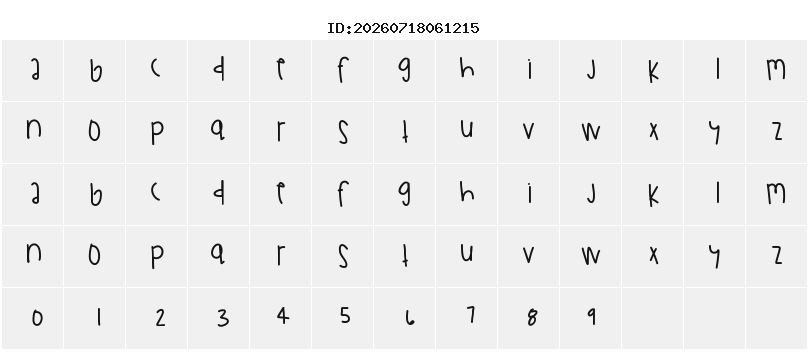
ChickenAndWaffles Preview
About ChickenAndWaffles.ttf
ChickenAndWaffles.ttf is a modern, elegant sans-serif font designed for ultimate readability and visual harmony. Perfect for branding, headlines, web design, and print materials.